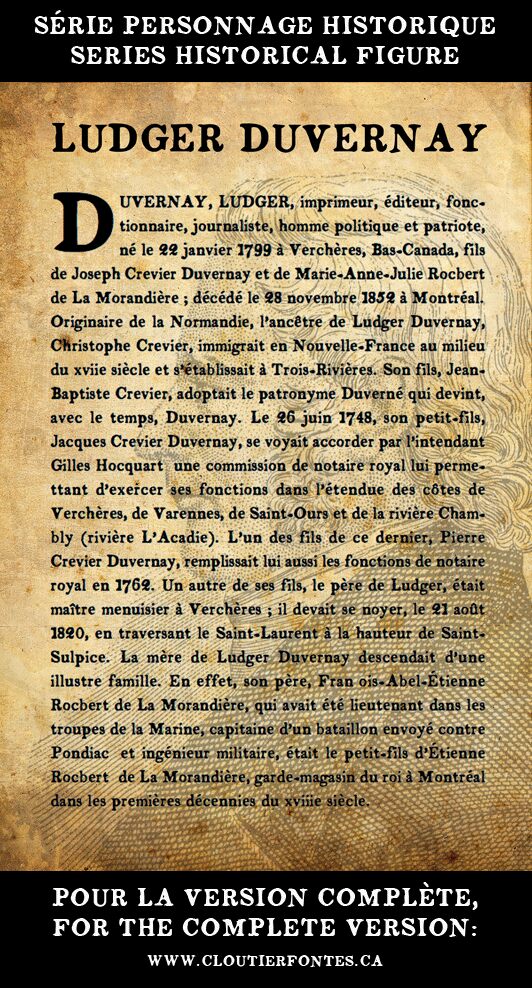
Ludger Duvernay is a free old-school distorted display font with broad letters and an uneven silhouette. Its flared serifs, pinched joins, and swelling curves recall rough-cut show bills rather than classical type. Small nicks and unexpected bends keep the forms lively.
Vintage entertainment is its most convincing territory. The lettering fits circus posters, tavern branding, and music packaging, where its theatrical weight can set a rowdy period scene. On festival merchandise or book covers, the warped shapes can echo hand-drawn borders, woodcut figures, and other rough illustration.
Ludger Duvernay
Steve Cloutier